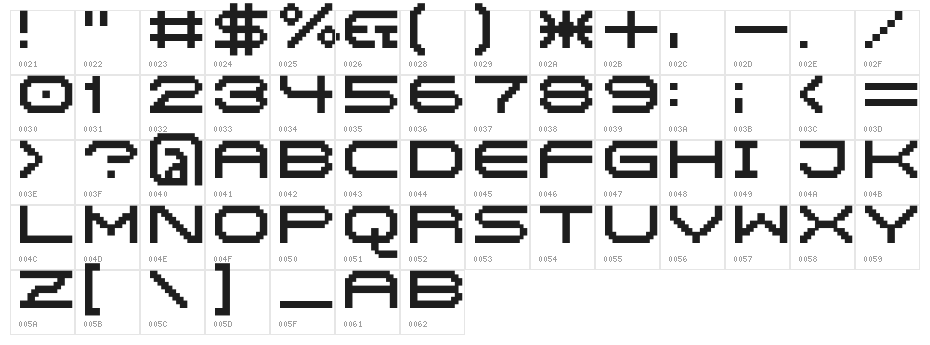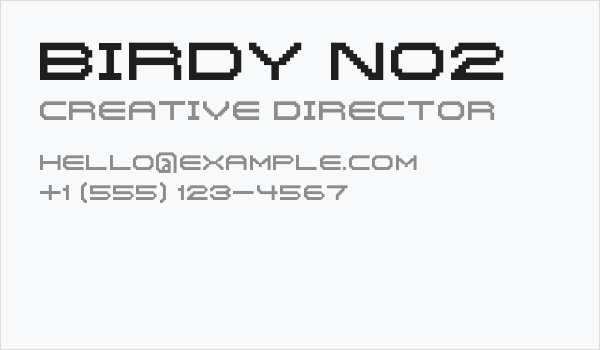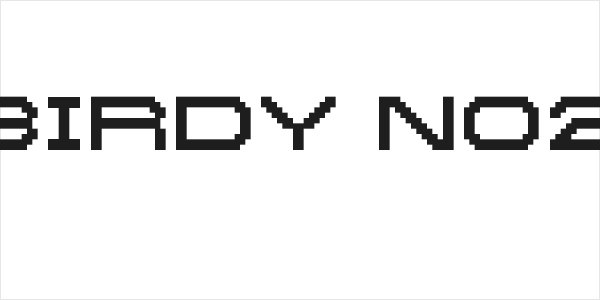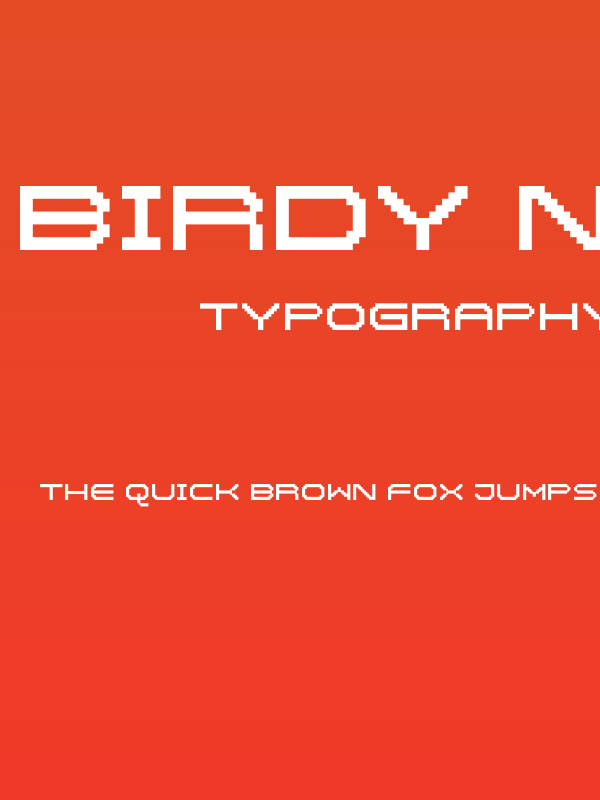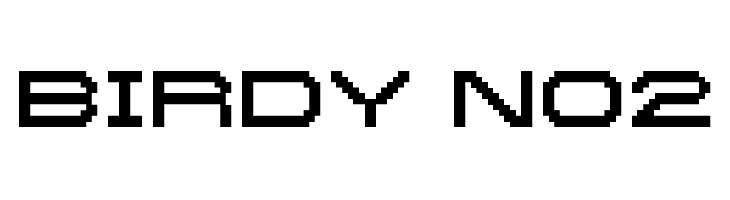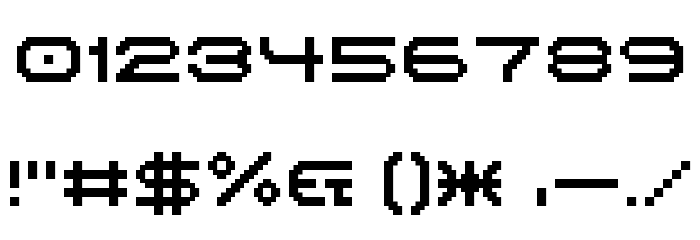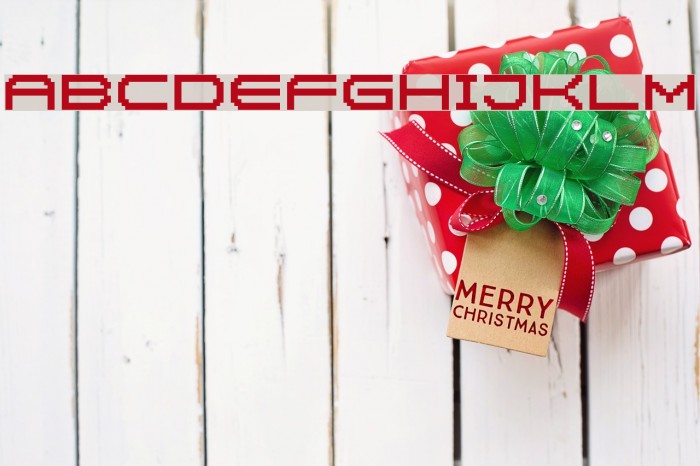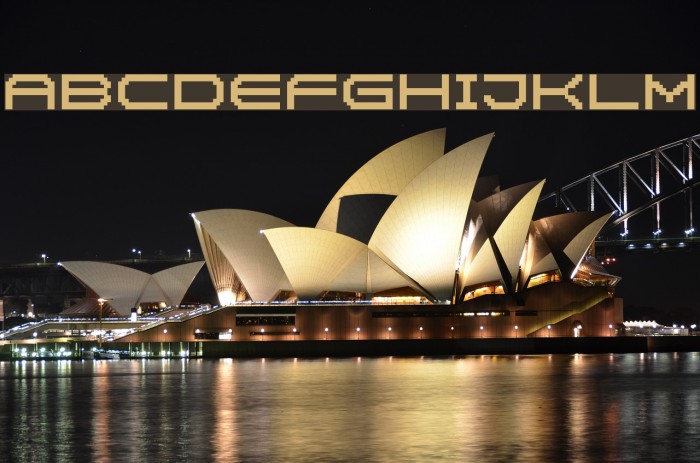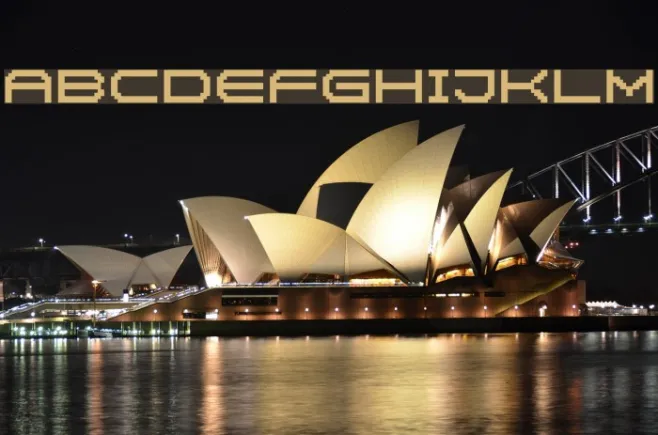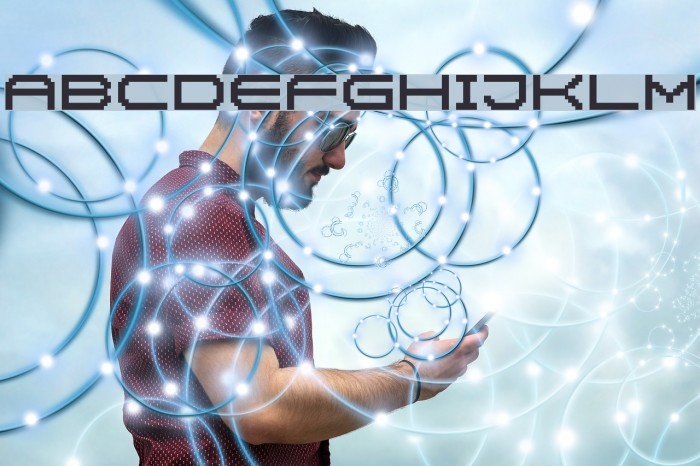
Birdy No2 Font
Birdy No2 Description
This font features a pixelated, geometric design that evokes a retro, digital aesthetic reminiscent of early computer graphics. Each character is constructed with sharp, angular lines and a uniform thickness, creating a cohesive and structured appearance. The uppercase and lowercase letters maintain a consistent style, with the numerals and special characters following suit. The overall look is clean and minimalistic, making it suitable for projects that require a tech-inspired or vintage digital feel.
| Overall Style | Vintage, Digital |
| Proposed Projects | Ideal for video game design, tech-themed posters, digital art projects, and retro-style branding. |